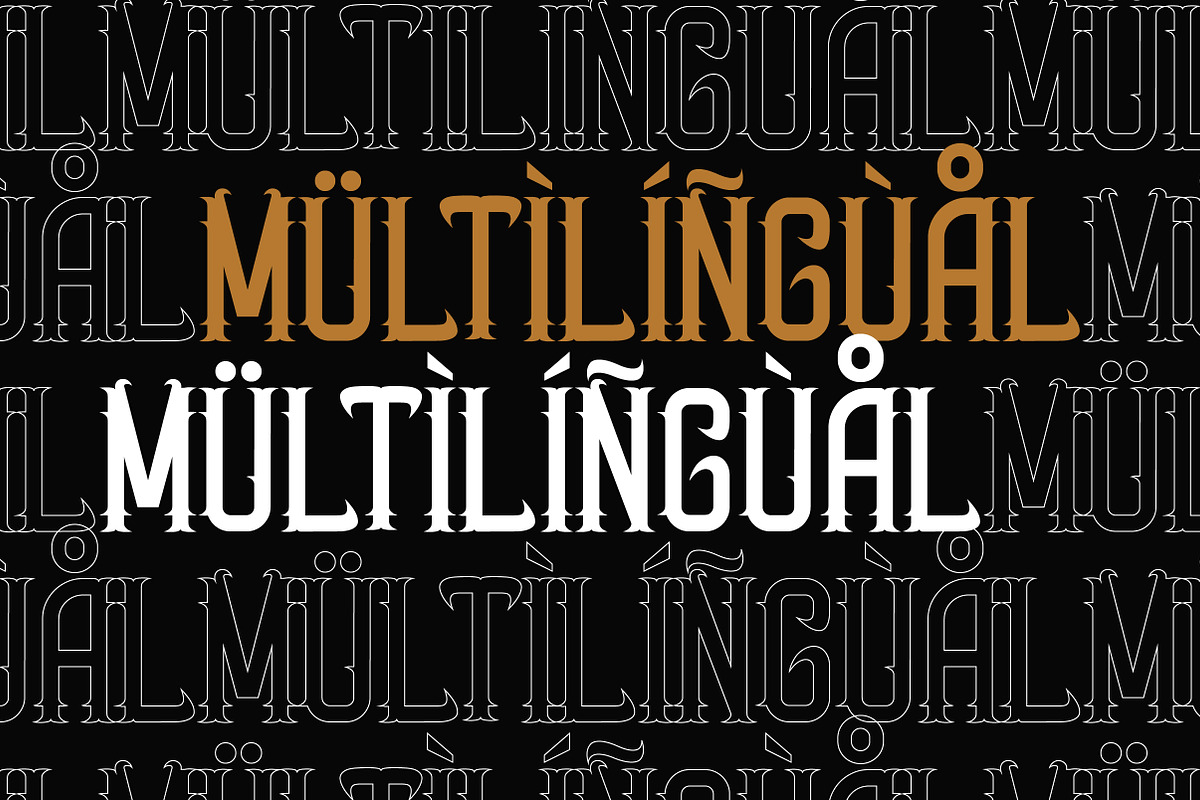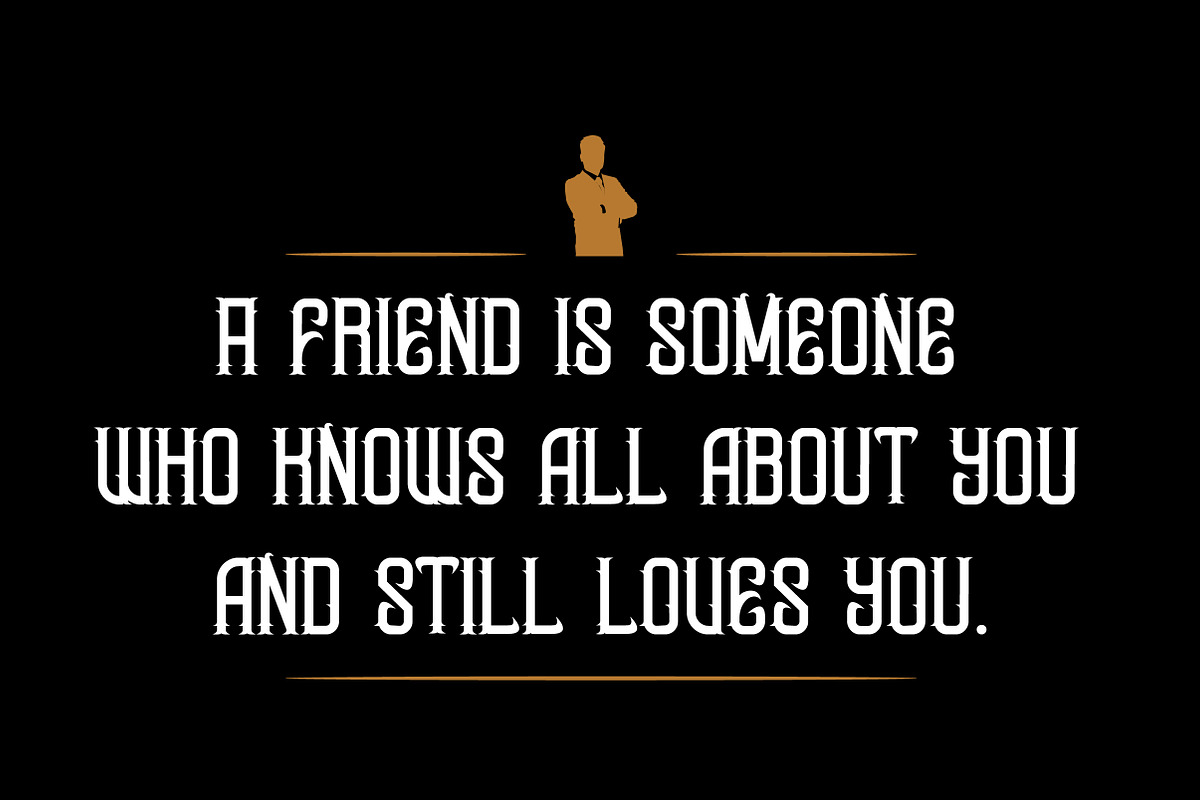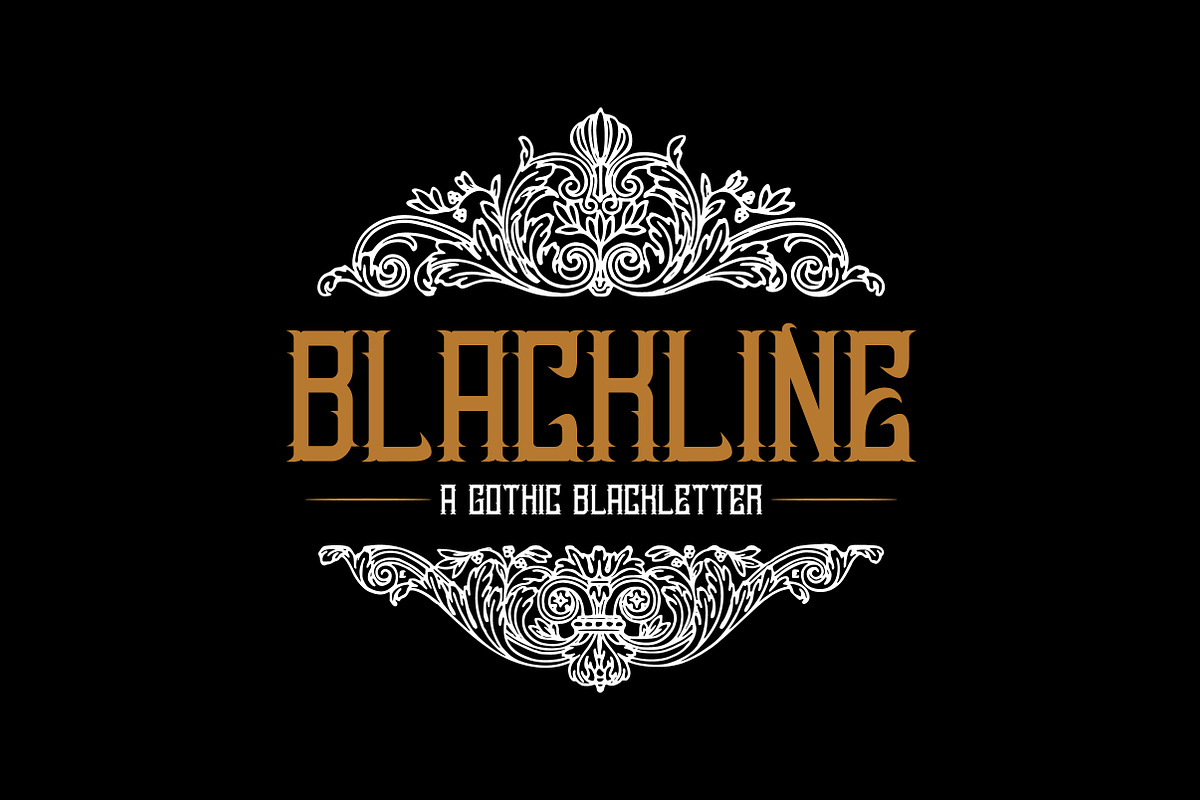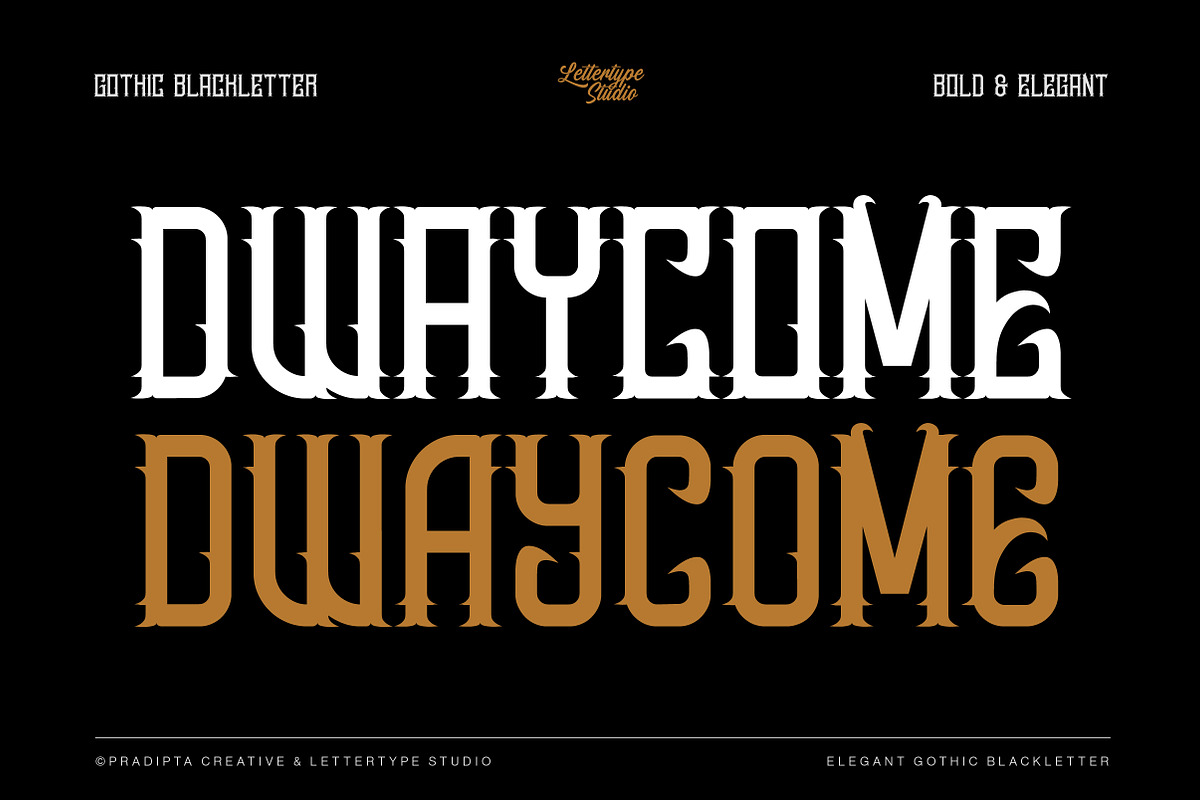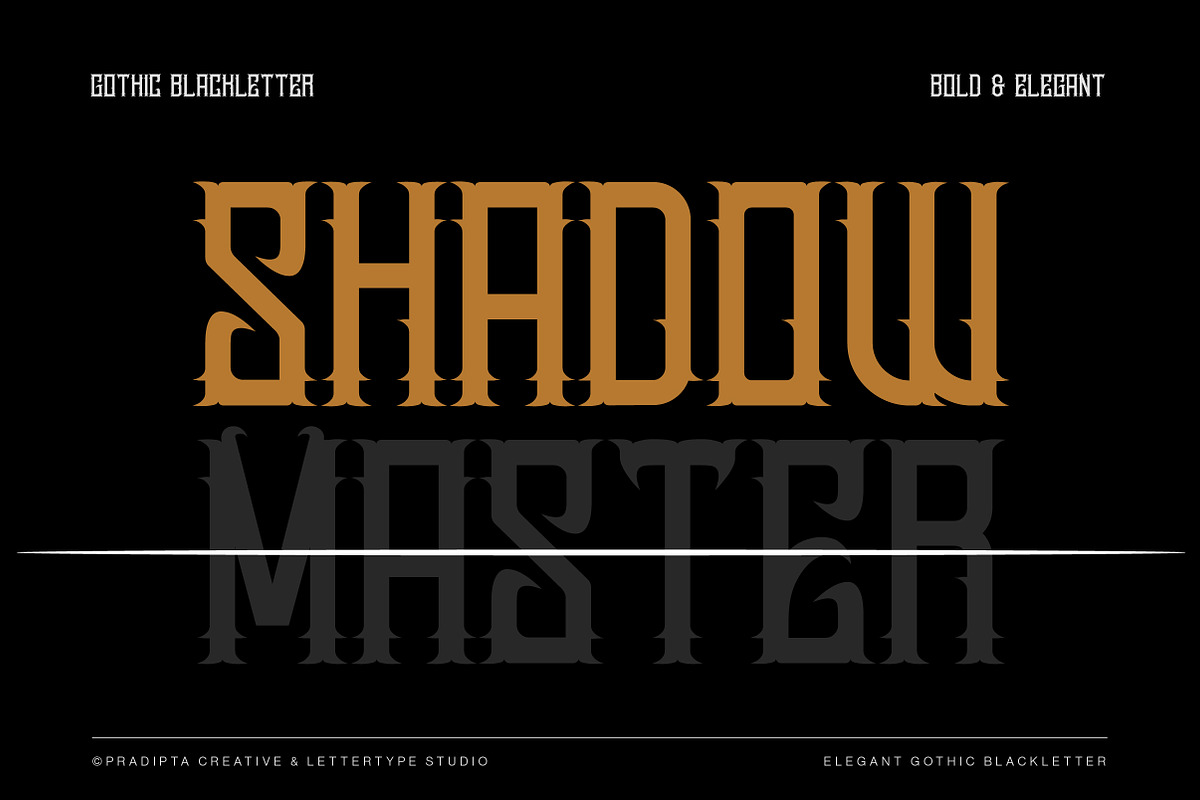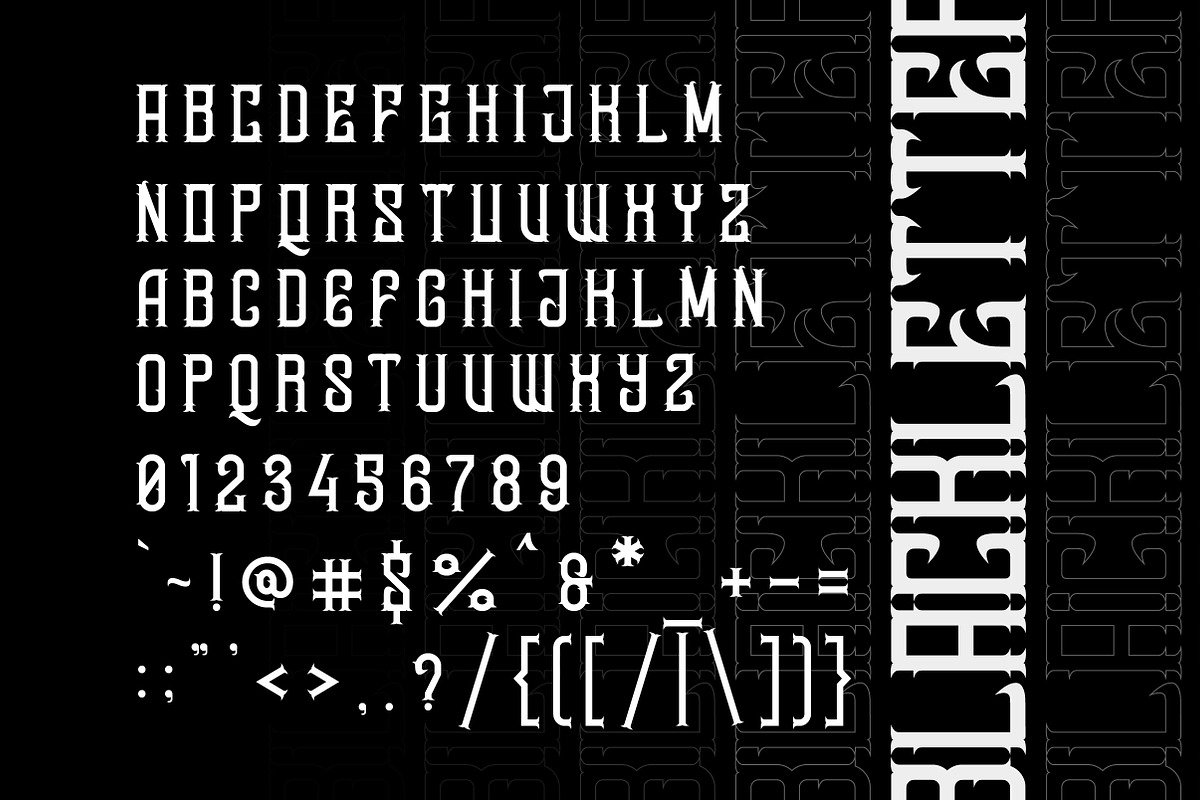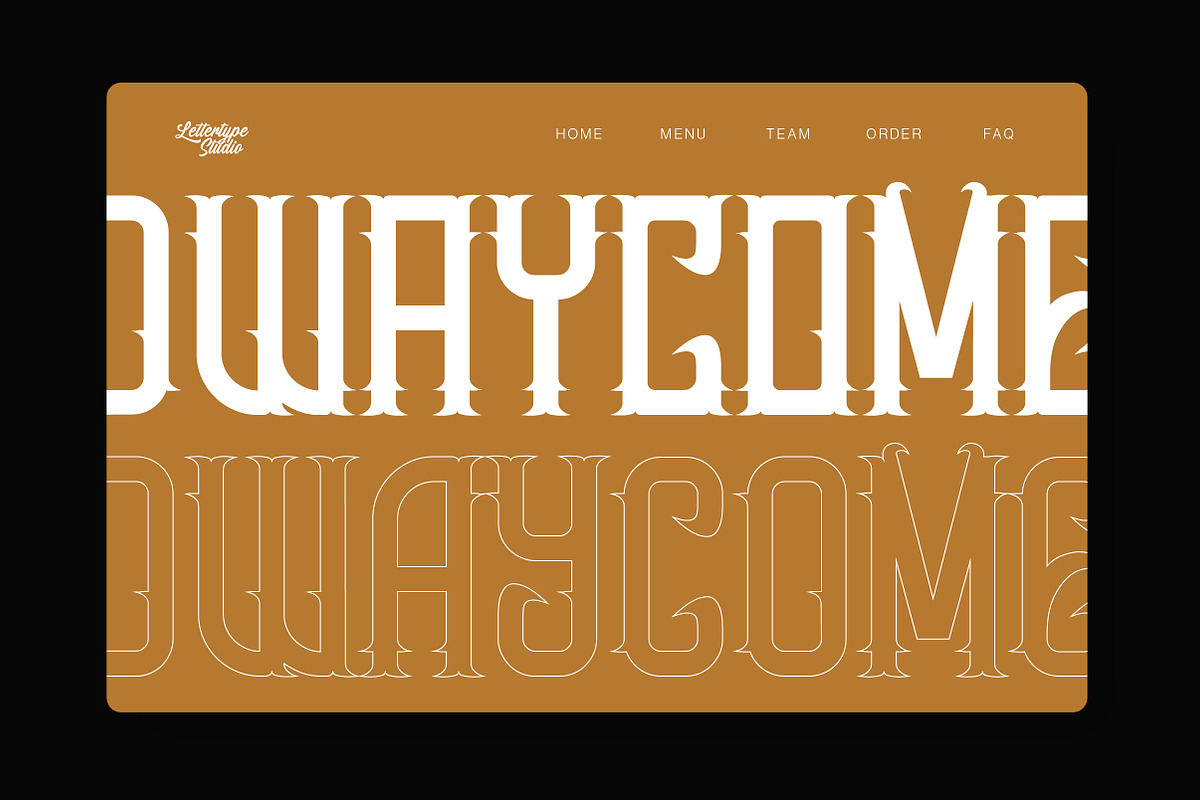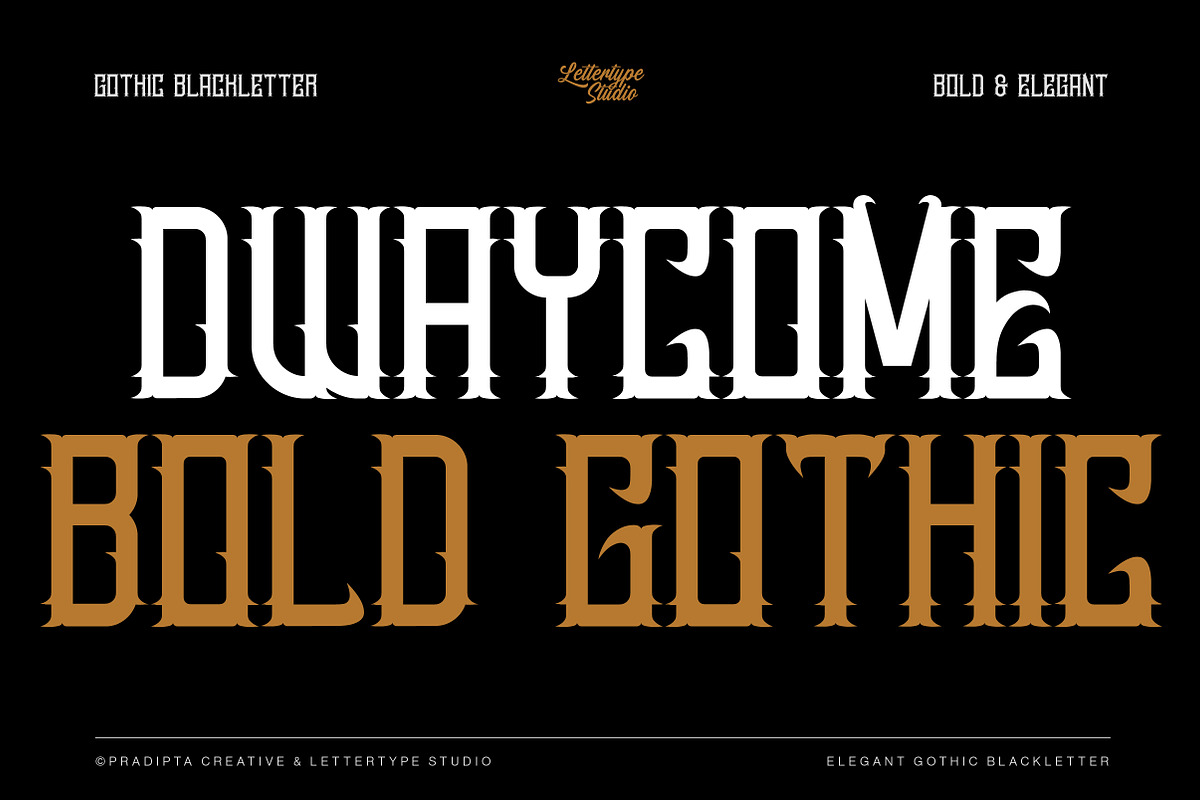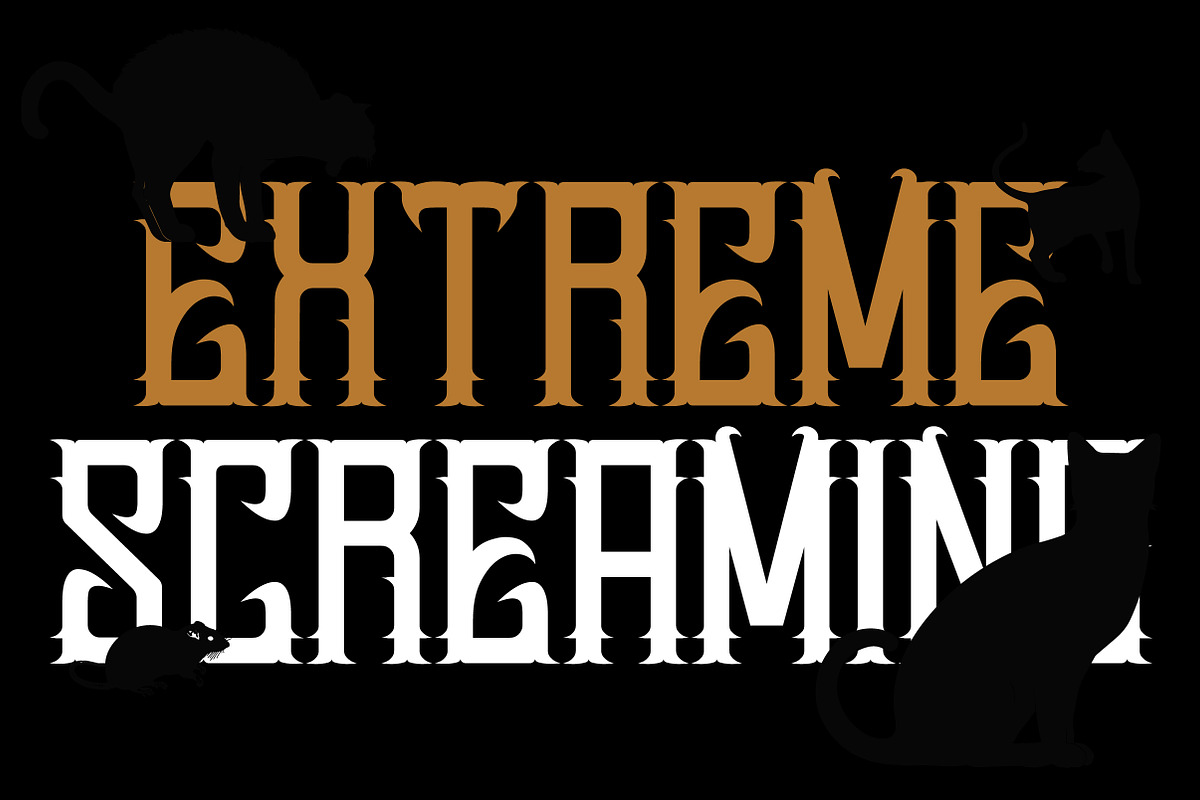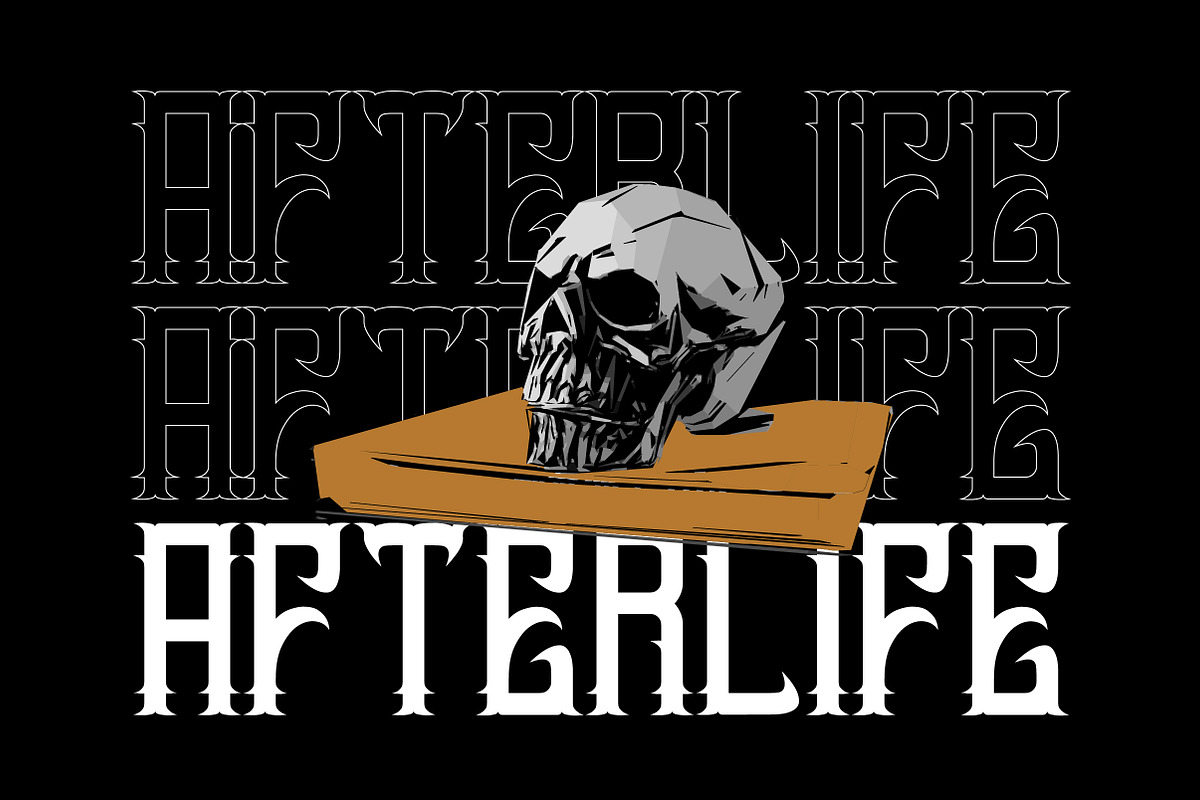
Dwaycome Gothic Blackletter Display
Dwaycome is a gothic blackletter fonts blend a rich, historical heritage with bold, gothic elegance, making them perfect for creating impactful designs that stand out. Combining the ornate and intricate letterforms of blackletter typography with the clean and minimalist features, these typefaces bring a unique flair to logos, posters, branding, and editorial projects. Ideal for designers looking to incorporate both vintage sophistication and modern legibility, blackletter fonts are gaining traction as a timeless choice for high-end design projects.
This font will be perfect for logo, branding, advertising, gothic design, animation or movie, logos, poster quote, book / cover Title, editorial design, website / blog, card, custom mug, pillow, t-shirts, and any gothic hand-lettered needs.
Lowercase & Uppercase
Alternates & Ligature
Gothic logos, branding & tattoo-inspired visuals
Book covers, album art & movie title design
Posters, merchandise & editorial projects
Vintage-inspired packaging & apparel prints
Bold artistic layouts with medieval charm